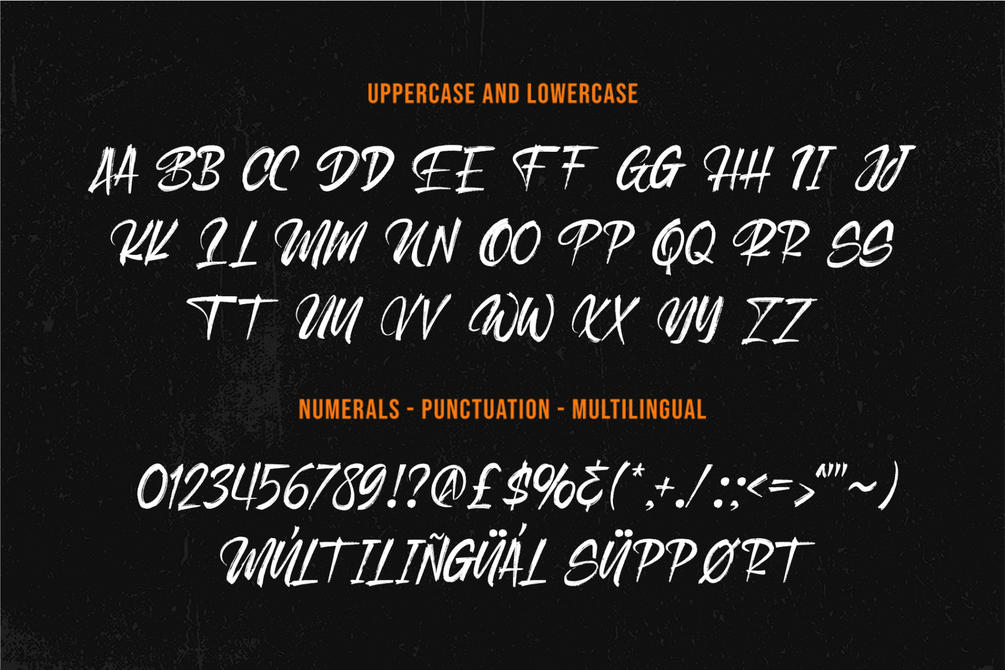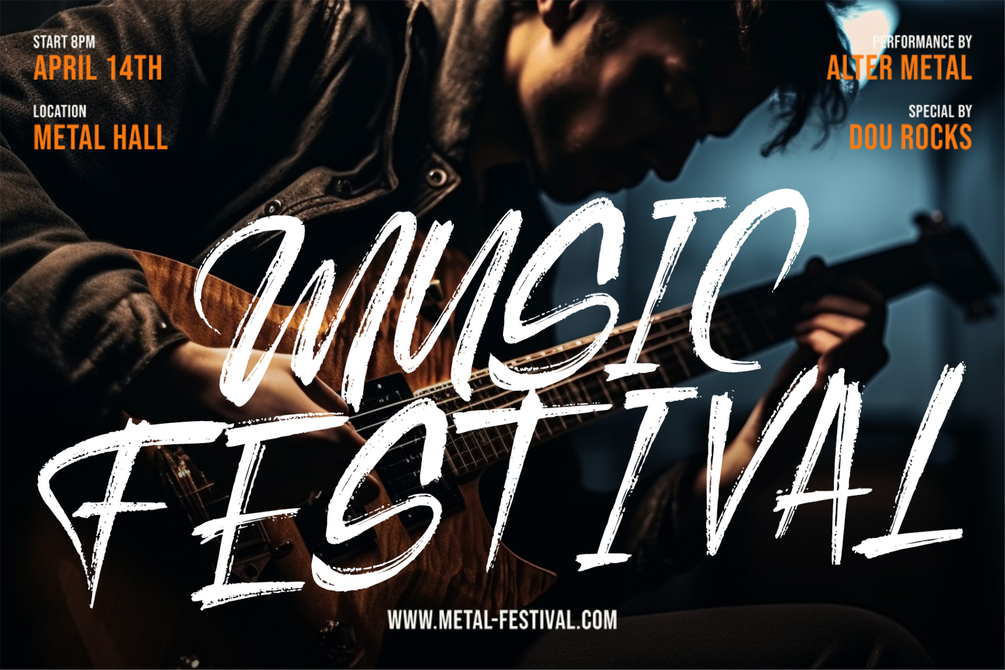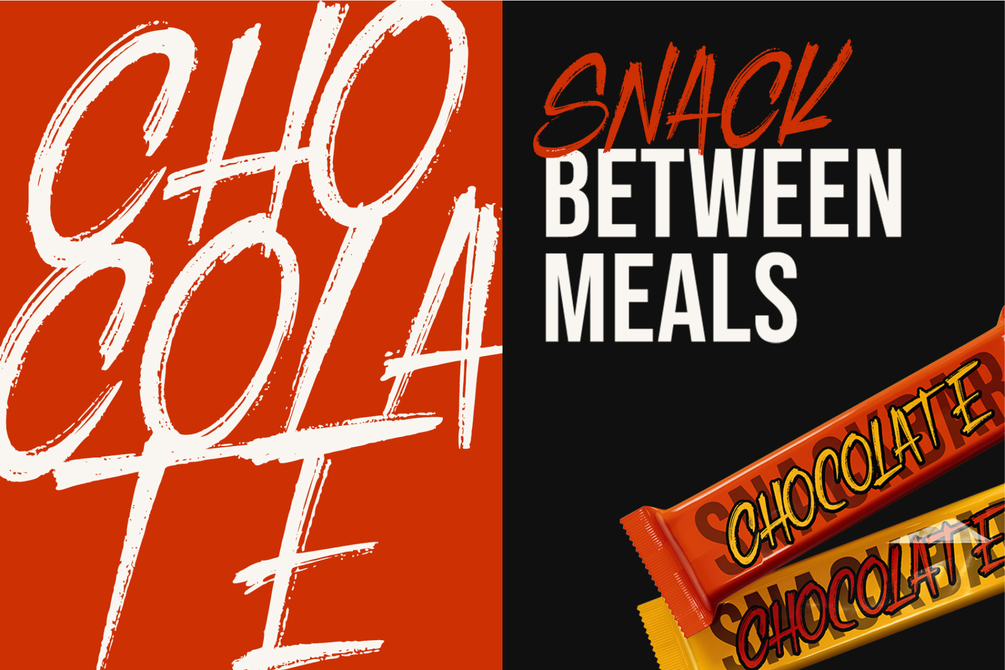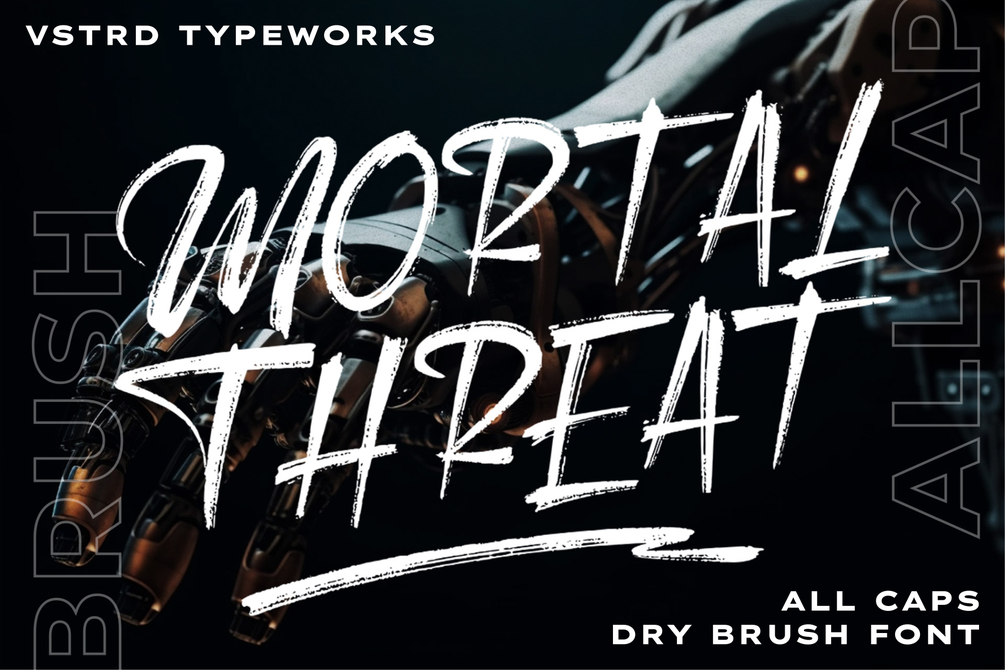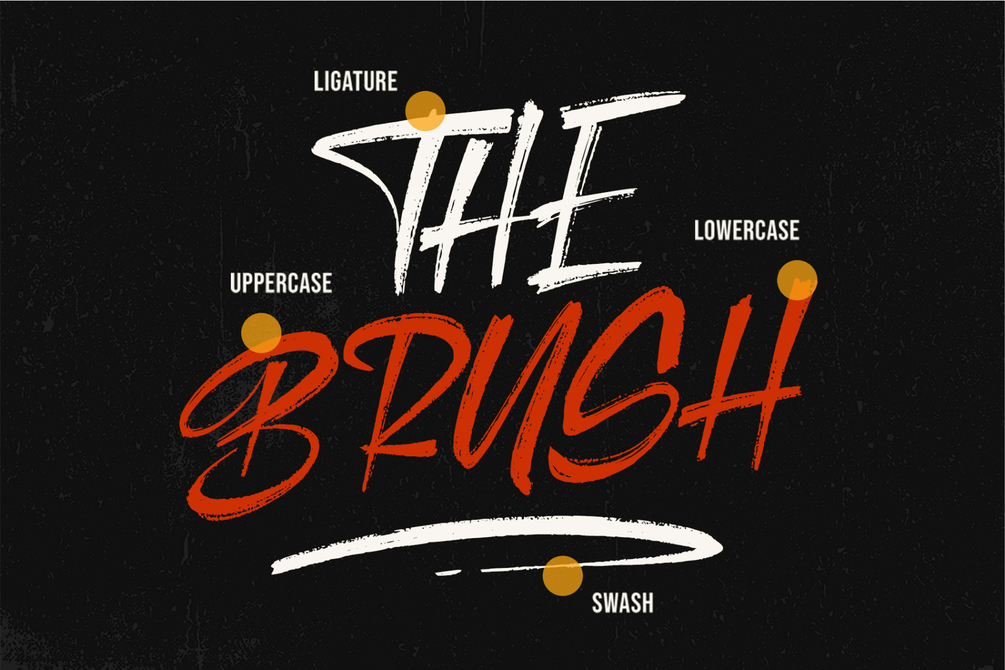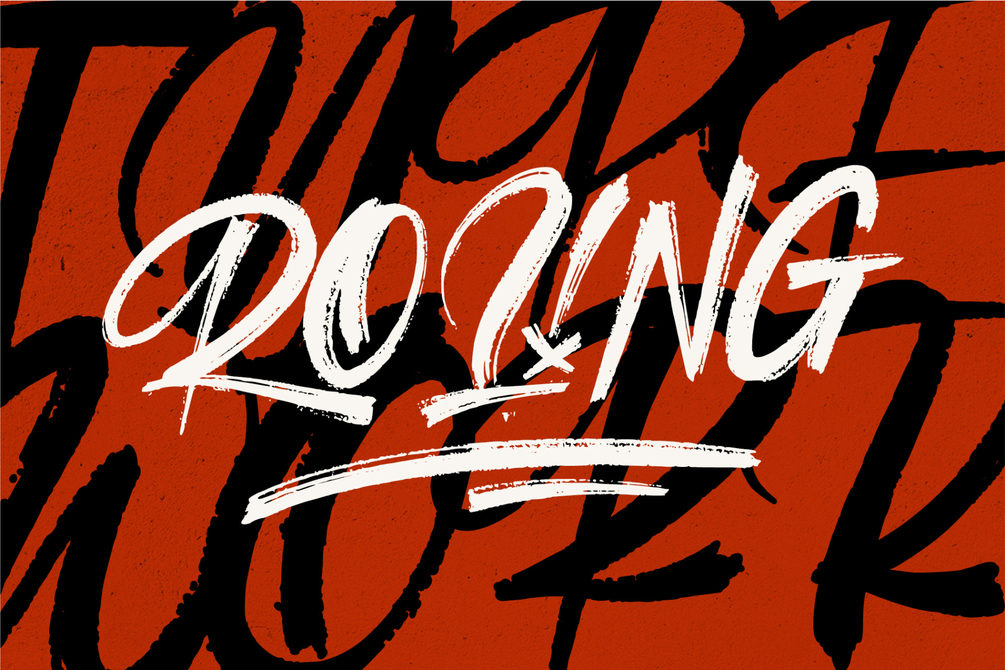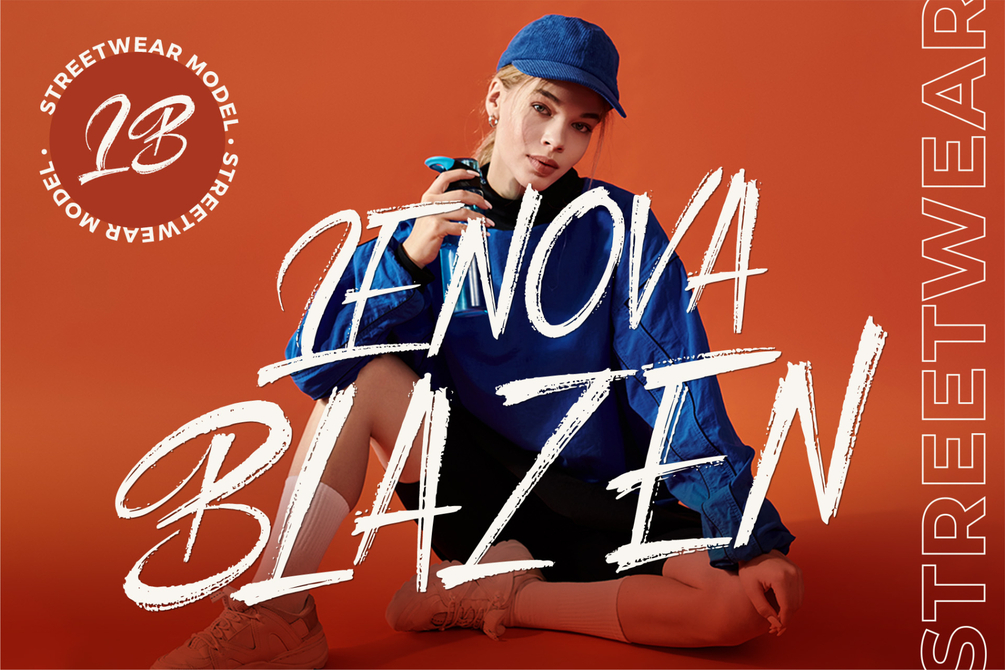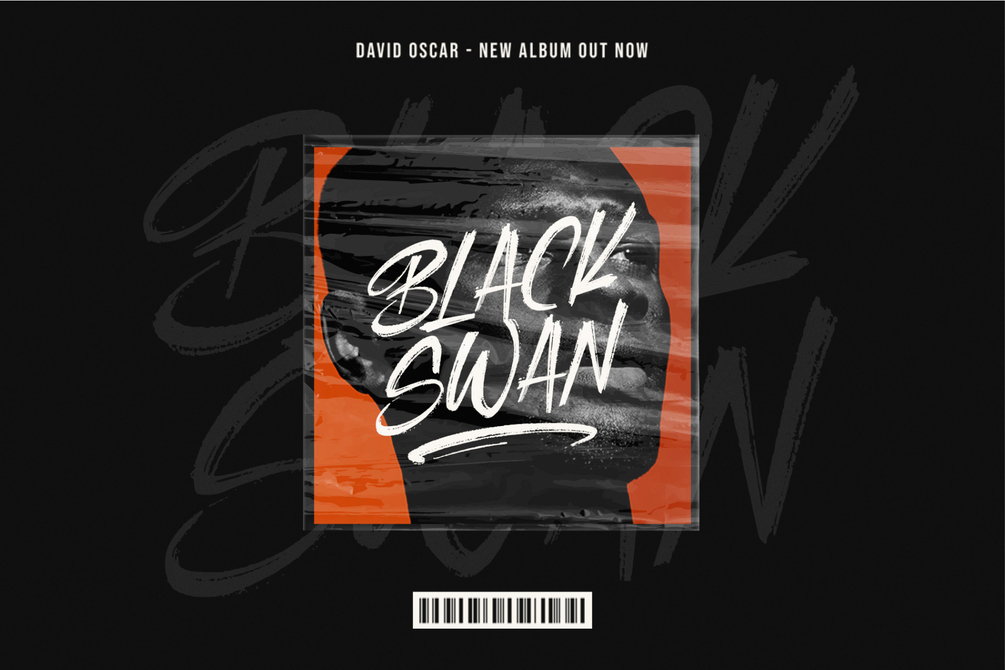
Mortal Threat - Dry Brush Font
Bring energy and attitude to your designs with Mortal Threat, a powerful dry brush font crafted from natural, hand brush strokes. With its raw, expressive strokes and dynamic texture, this font is perfect for projects that demand a bold, rebellious edge.
Ideal for logos, Apparel Campaign, food & beverage branding, promotional campaigns, video titles, product packaging, quotes, posters, flyers, t-shirts, and eye-catching text overlays, Mortal Threat adds a handcrafted, urban feel to any design.
Key Features
- Authentic dry brush texture for a raw, hand-painted look
- Perfect for high-impact branding and statement typography
- Versatile for both digital and print projects
- Adds an edgy, street-art-inspired vibe to your designs
Make a statement with Mortal Threat – where bold strokes meet fearless creativity!
Features :
- All Caps Uppercase & Lowercase
- Numbers & Punctuation
- Ligatures
- Alternates
- Swash
- Multilingual Support